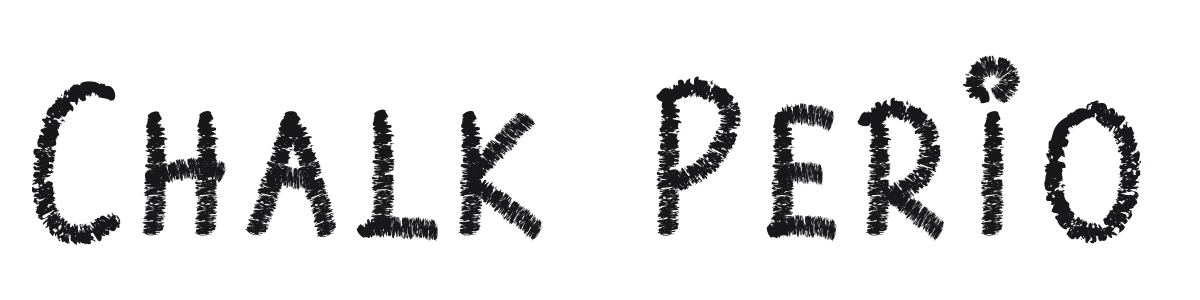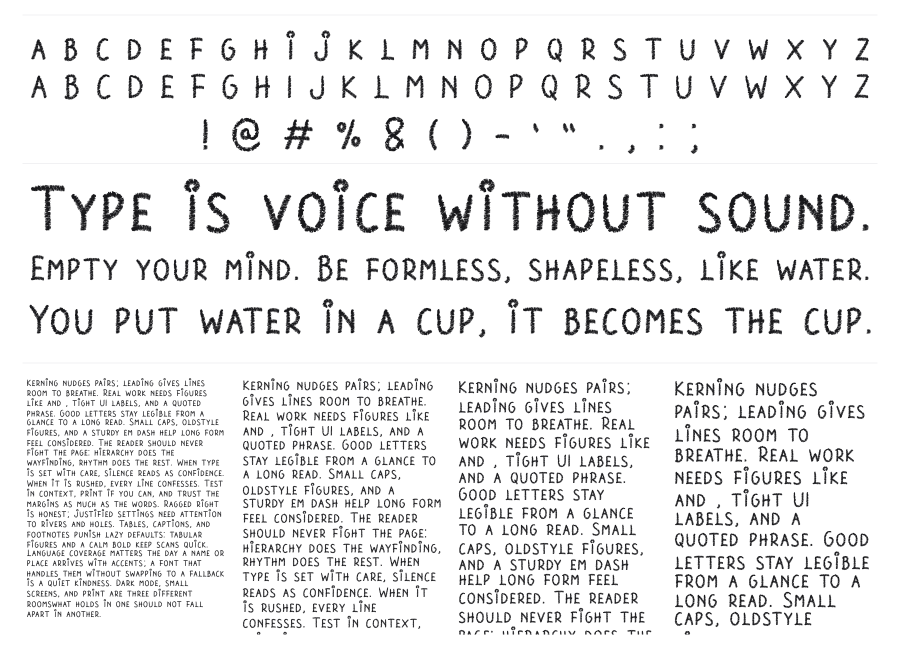
Chalk Perio
Chalk Perio is a display font that simulates the look of hand-lettered chalk on a blackboard, with dense fibrous texture covering every stroke. The effect is convincingly tactile, somewhere between careful lettering and spontaneous scrawl. It works well for menus, signage, children's content, and anything that needs a handcrafted, unpretentious feel.